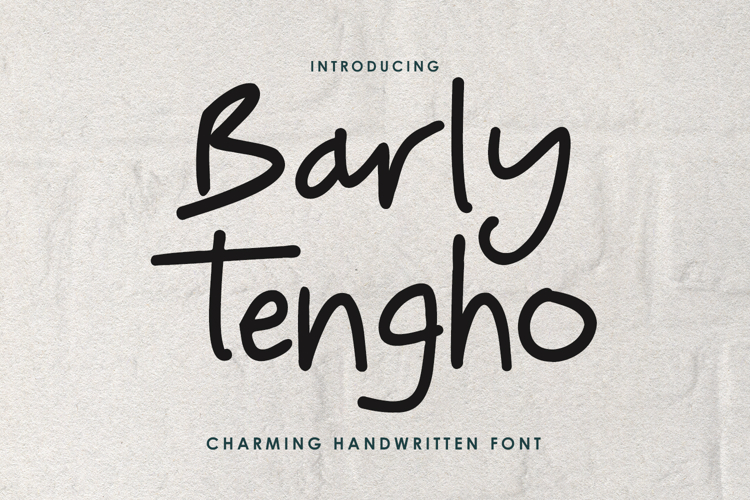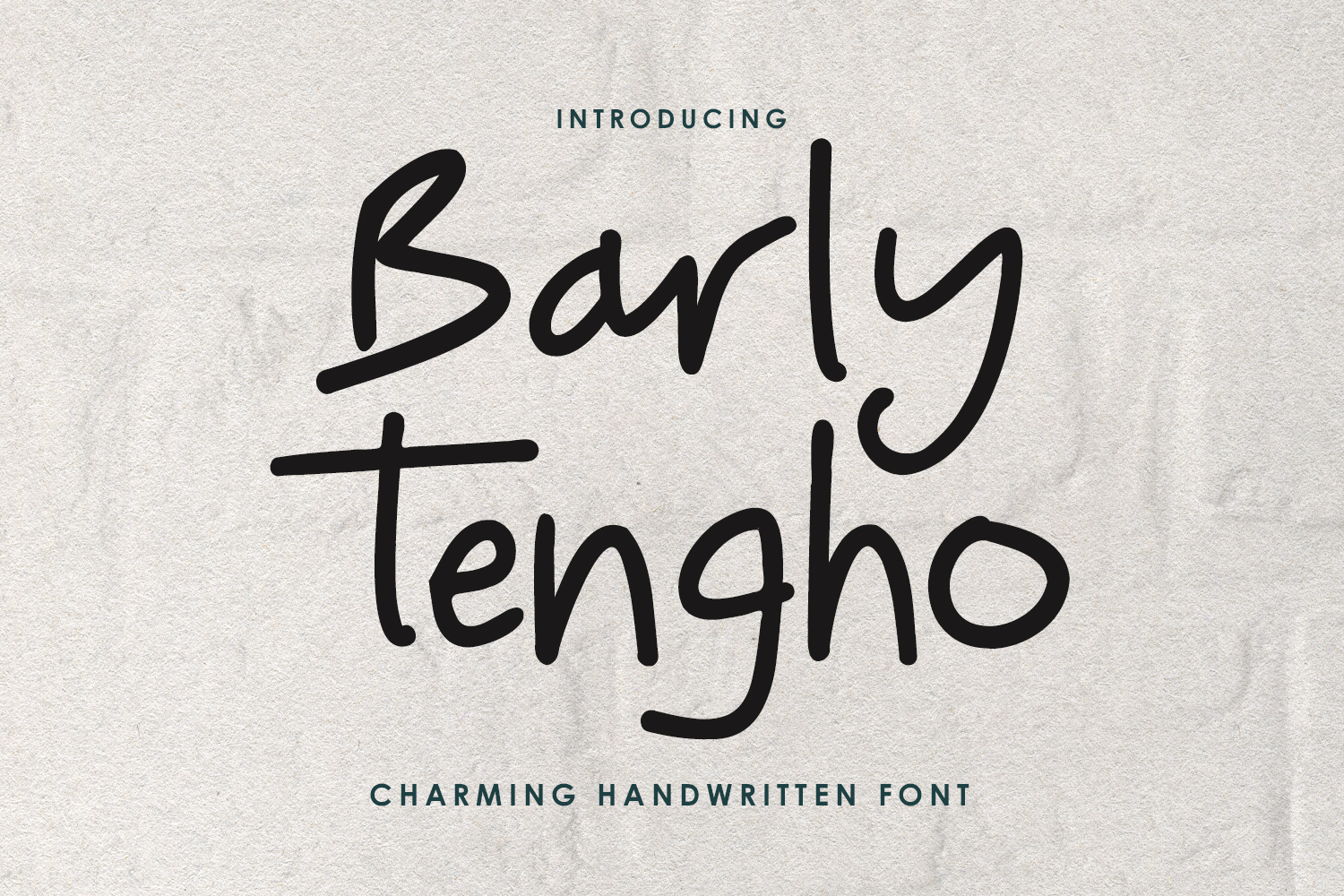
Barly Tengho Charming Casual Handwritten Font
Barly Tengho is a charming and casual handwritten font that brings a warm, awesome touch to your designs. Its playful strokes and natural flow create a sense of authenticity, making it perfect for branding, quotes, invitations, social media, packaging, and more.
Whether you’re designing a boutique logo, crafting wedding stationery, or creating heartfelt quotes, Barly Tengho delivers a modern handwritten style that feels both approachable and stylish. With full multilingual support, uppercase and lowercase letters, numbers, punctuation, and symbols, this font gives you everything you need for versatile and creative typography. Bring your words to life with Barly Tengho a handwritten font that blends charm and creativity.
- Ligatures and Alternate Style